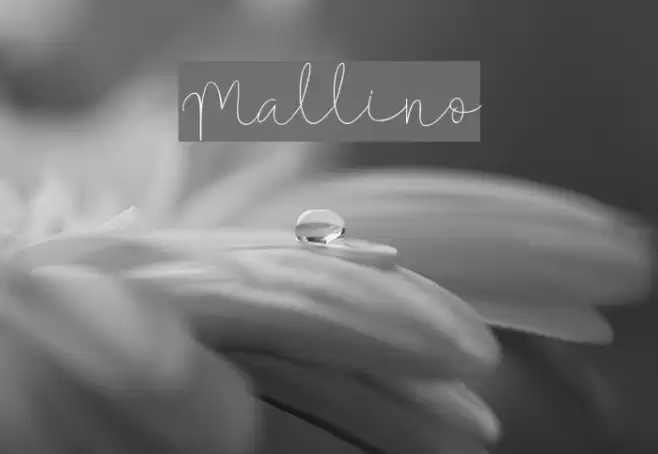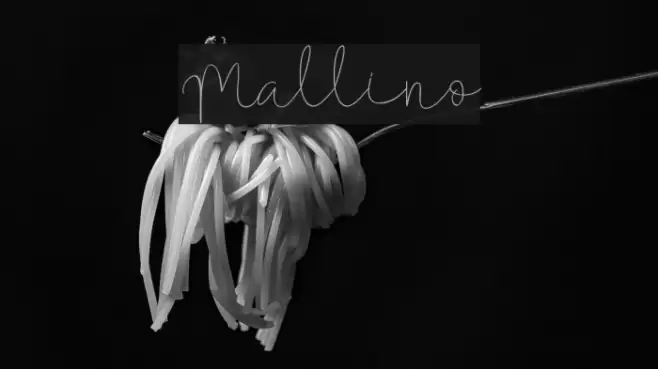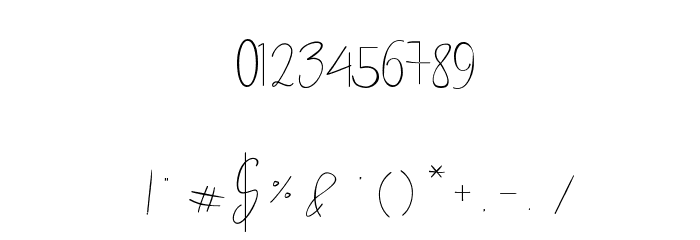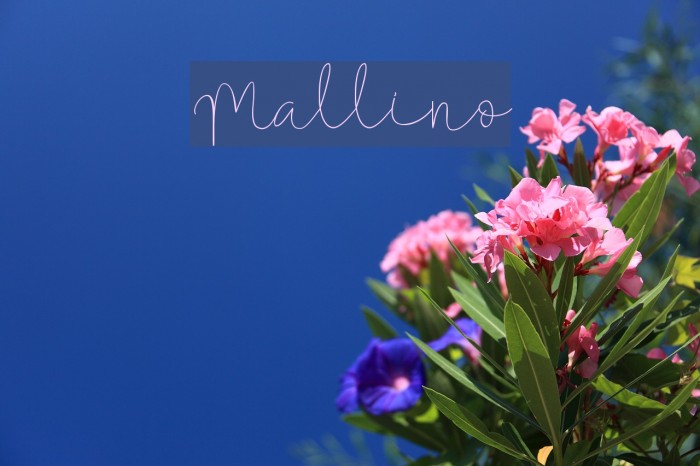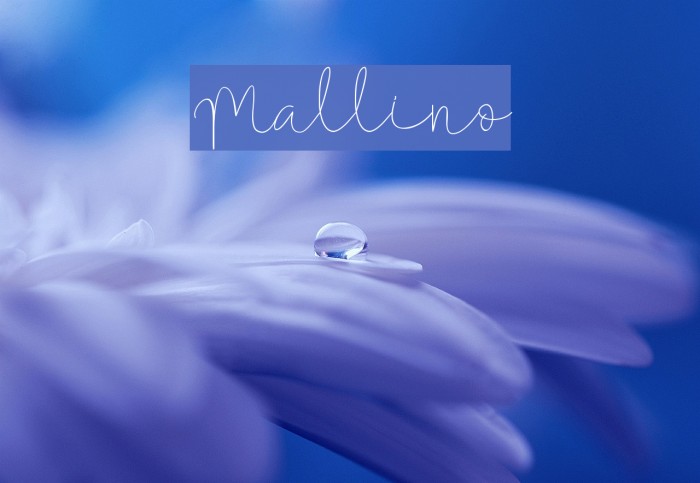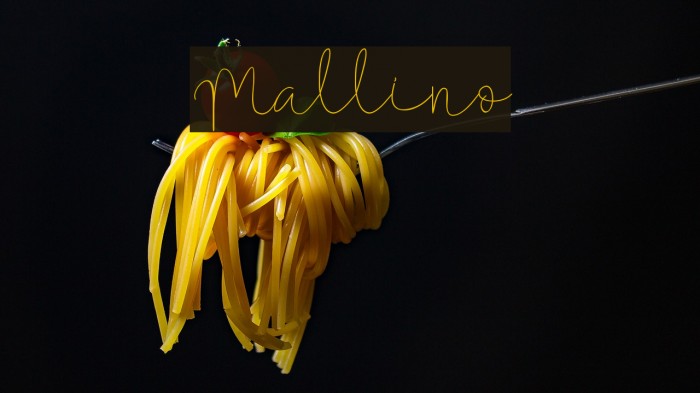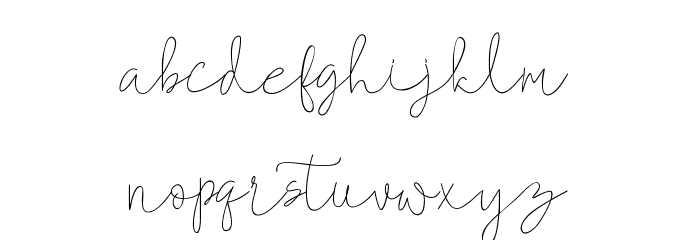
Mallino Font
Mallino Description
This font features an elegant, flowing script style with a handwritten appearance. The characters are connected with smooth, fluid strokes, giving it a graceful and sophisticated look. The uppercase letters are distinct with their tall, looping ascenders, while the lowercase letters maintain a consistent flow, enhancing readability. The numerals and special characters complement the alphabet with similar curves and loops, maintaining the overall aesthetic. This font is ideal for projects that require a personal touch, such as invitations, greeting cards, or branding materials. Its delicate lines and artistic flair make it suitable for conveying elegance and creativity.
An elegant, flowing script font with a handwritten style from Uncategorized fonts.
- Proposed Projects: Ideal for wedding invitations, greeting cards, branding, and personal projects.
- Weight: Light
- Overall Style: Elegant, Artistic
- Use Case: Invitations, Greeting cards, Branding